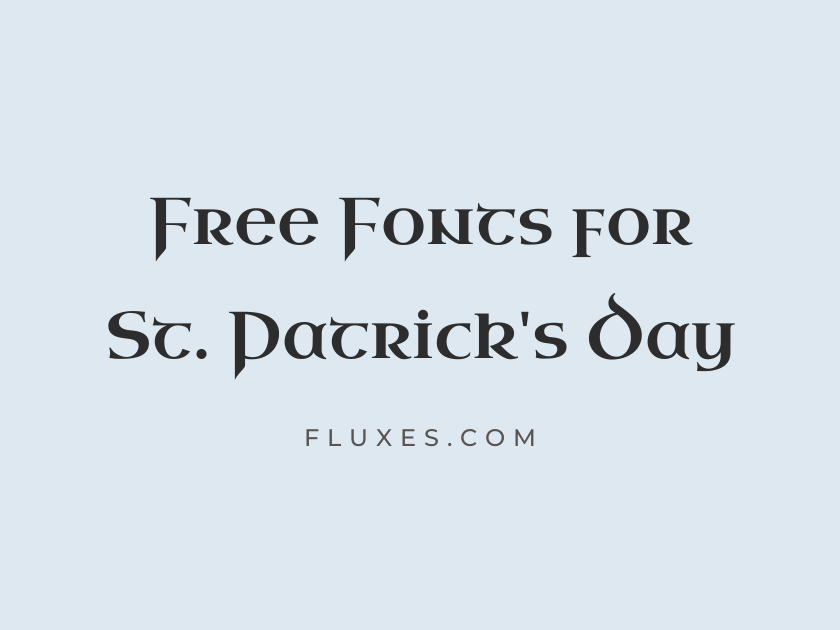
60 Best Free Fonts for St. Patrick’s Day
St. Patrick’s Day design lives at the crossroads of two very different moods: the old, storied feel of Celtic heritage and the loud, giddy fun of shamrocks, green beer, and parade banners. Finding free fonts that capture either side, or both, makes all the difference for flyers, pub menus, party invitations, and social graphics. Every option here is a genuine Google Fonts pick, ready to download and drop into your next project.
Whether you’re designing a rustic Irish pub sign, a whimsical leprechaun-themed printable, or an elegant toast for a family gathering, there’s a typeface below suited to the job.
Uncial Antiqua
Ancient blessings for the luck of the Irish
Uncial Antiqua
Rounded, monk-like letterforms make this one of the most literal “Celtic” fonts on Google Fonts, evoking illuminated manuscripts and old Irish stone crosses. It’s a natural choice for a headline on a heritage-themed invitation, though its density means it should stay large and short rather than carrying paragraphs of copy.
MedievalSharp
Tales of shamrocks, castles, and green hills
MedievalSharp
Jagged, hand-inked strokes give this face a storybook quality, as if it wandered off a tavern chalkboard in old Dublin. It pairs nicely with a distressed texture background for pub signage or a fantasy-tinged party poster.
Metamorphous
Legends of leprechauns and pots of gold
Metamorphous
Metamorphous carries a weighty, engraved feel that suits anything wanting to look mythic or medieval, from a whiskey label to a Celtic knot poster. At body-copy sizes it turns muddy, so reserve it for titles and short phrases.
Almendra
Toast to Ireland's oldest folklore
Almendra
This is a softer, more readable take on old-world serif design, with calligraphic flourishes that hint at illuminated text without tipping into costume-party cliché. It works well in printed invitations where a touch of antiquity is wanted alongside actual legibility.
Almendra SC
LUCK, LORE, AND LOTS OF GREEN
Almendra SC
The small-caps sibling of Almendra trades lowercase charm for a stately, engraved-plaque look. Use it sparingly, for a title line or a monogram-style header on a certificate or wedding-adjacent Irish blessing.
Ye Olde Irish Pub & Ale House
A true blackletter face, dense and dramatic, best suited to pub signage, beer labels, or anything wanting a Gothic tavern aesthetic. It demands generous size and short wording; at small scale the letters collapse into texture rather than words.
UnifrakturCook
Raise a glass to Saint Patrick tonight
UnifrakturCook
Slightly rounder and friendlier than its Maguntia cousin, this blackletter variant still reads as unmistakably old-world. It’s a strong match for a craft beer label or a “est. 1847”-style badge design.
Sail the Emerald Isle for treasure
Pirata One leans theatrical, with spiky, adventurous letterforms that suit a pot-of-gold treasure map or a swashbuckling leprechaun graphic. It’s playful rather than solemn, which sets it apart from the more serious blackletter options nearby.
Carved in stone since the fifth century
Inspired by classical Roman inscriptions, Cinzel brings a monumental, chiseled quality that works surprisingly well for St. Patrick’s Day content rooted in history and heritage rather than novelty. Its capitals look particularly striking on dark green backgrounds.
Celebrate the patron saint of Ireland
This ornamented cousin of Cinzel adds decorative swashes to the same stately Roman skeleton, giving it a slightly more festive, medal-like presence. Save it for a title or logotype rather than running text, where the flourishes would compete with themselves.
IM Fell English
An old Irish blessing for your home
IM Fell English
Modeled on 18th-century printing types, IM Fell English has the slightly worn, ink-bled character of an antique storybook. It’s an understated way to bring historical warmth to a blessing, poem, or quote card without resorting to costume-y Celtic clichés.
Grenze Gotisch
Guinness, jigs, and green ribbon
Grenze Gotisch
A contemporary reinterpretation of blackletter, Grenze Gotisch is bolder and more geometric than traditional Gothic type, making it easier to use in modern branding. It suits a craft brewery’s St. Patrick’s Day special or a punchy event poster headline.
Griffy
Where the rainbow meets the clover
Griffy
Griffy is quirky and a little cartoonish, with rounded, bubble-like strokes that feel more fairy-tale than formal. It’s a fun option for children’s party invitations or printable coloring sheets themed around leprechauns and rainbows.
An evening of Irish poetry and song
For anything that leans literary, such as a quote from an Irish poet or a formal dinner menu, Cormorant Garamond offers refined, high-contrast elegance. It reads best at larger display sizes, where its delicate serifs can breathe.
Green backgrounds can swallow thin script fonts, so test contrast carefully. A cream, white, or gold background often lets delicate strokes stand out far better than green-on-green ever will.
With this range of free Google Fonts, from carved Celtic capitals to bubbly party lettering to easygoing handwritten scripts, there’s enough variety here to dress up everything from a formal Irish blessing to a green-beer flyer, all without spending a cent.